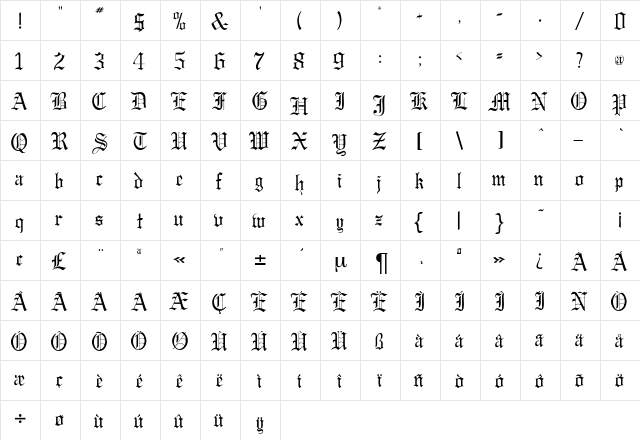
GregorDB Normal
Design Context for GregorDB Typeface
GregorDB is a composed and adaptable typeface that performs quietly and consistently across a wide range of design contexts.